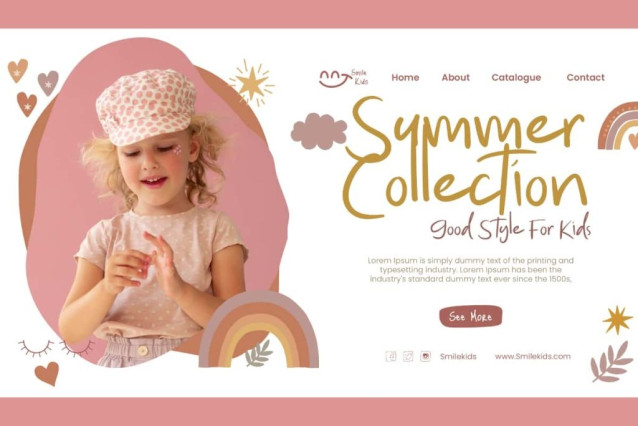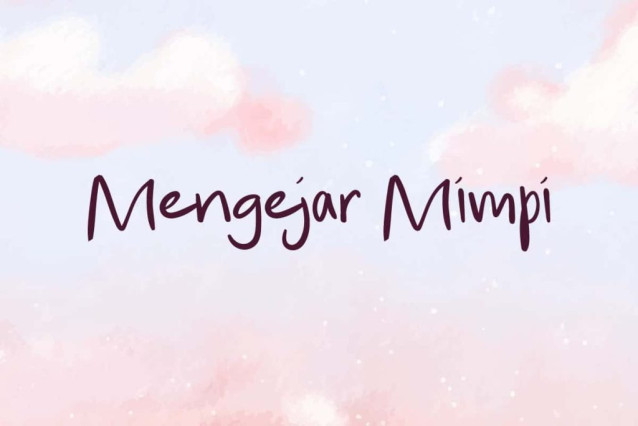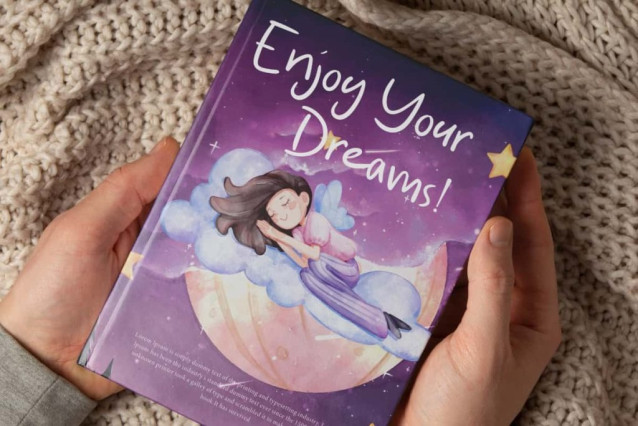
Mengejar Mimpi Font
Mengejar Mimpi Font is a cute handwriting font that makes for a cheerful look in any design. It has a unique character design that can attract attention. Use this font for your editing project needs, such as banners, billboard, blogs, card design, cover, flyer, label, logos, poster, printing, quotes, stationery, stickers, template, titles, watermarks, website, and more.
Mengejar Mimpi Font includes a complete set of Basic Uppercase and Lowercase Characters, Numbers, Punctuation Marks and Symbols. This font is designed with readability in mind, making it ideal for everything. Plus, the design adds spirit and personality to all your projects. Perfect for advertising, children’s goods brands, fashion, education, graphic design, publishing, writer, etc.